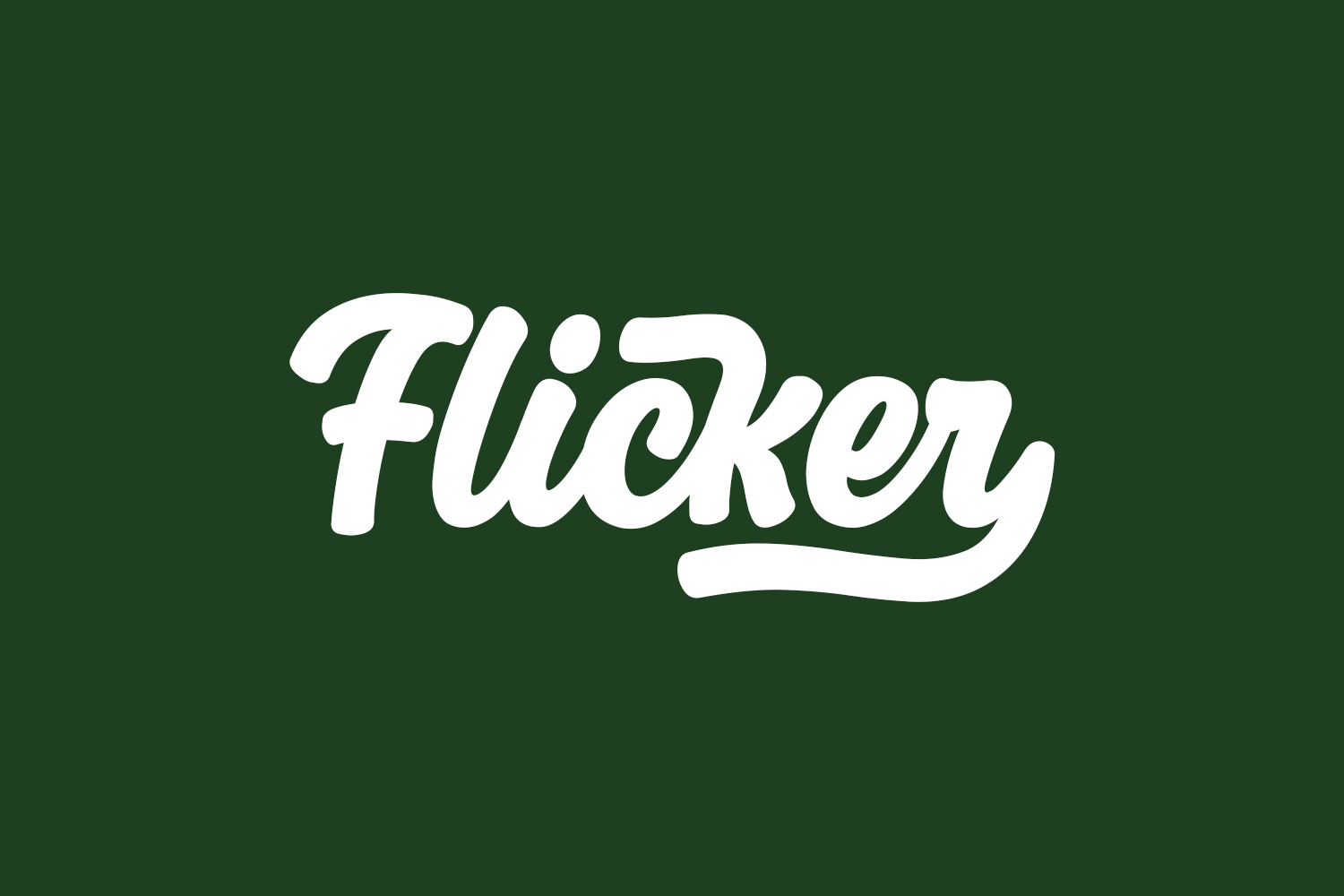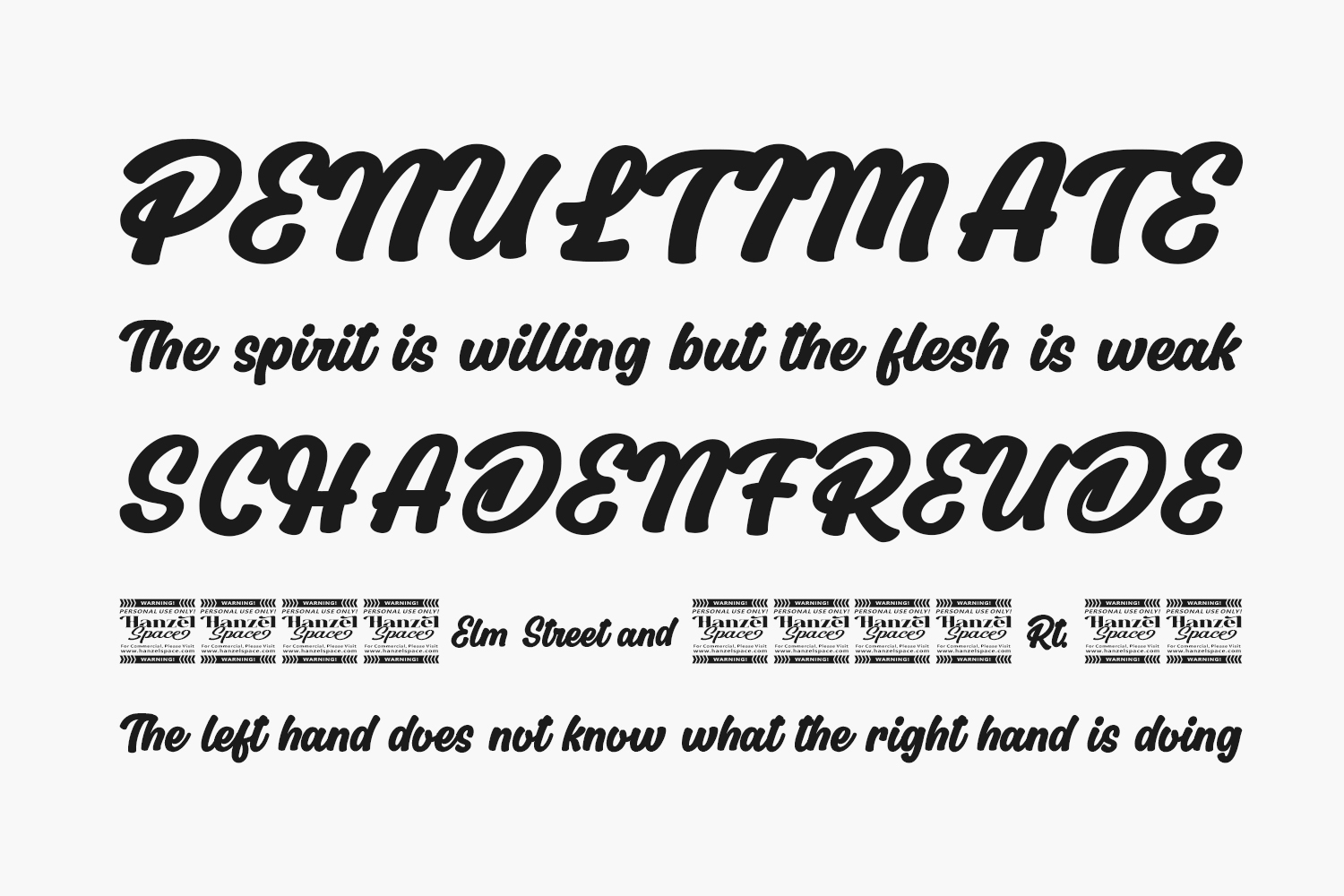
Flicker Free Font exudes both charm and elegance, making it a perfect choice for various design projects. Whether it’s wedding invitations, thank you cards, quotes, greeting cards, logos, or business cards, this handwritten font adds a touch of beauty to every design it graces. Download the font for free if you need it for personal use or purchase the full version for commercial use.